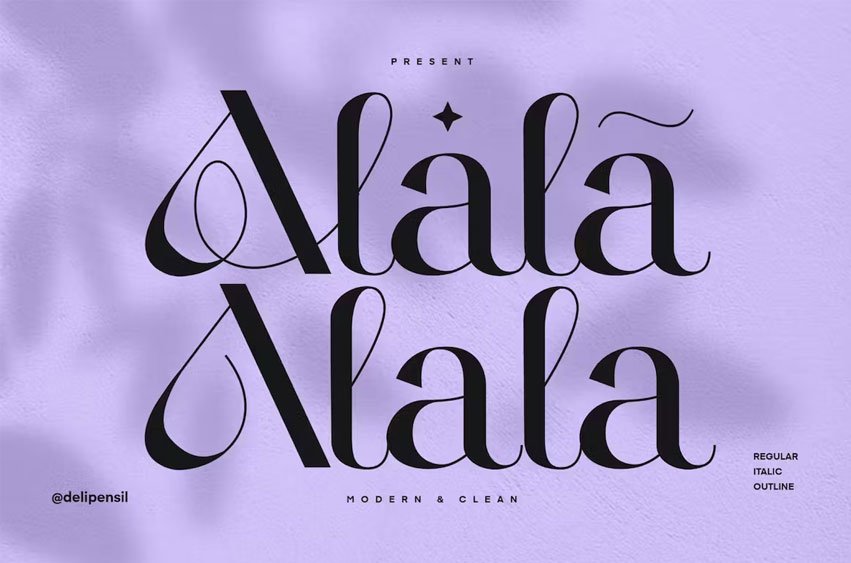
Alala Font Modern Serif Typeface. Beauty Serif font, clean classic and mindful , it combine in one font, use this font for anything beauty place for your logo, headline, cover book, magazine and many more
- ALALA Ligature Style